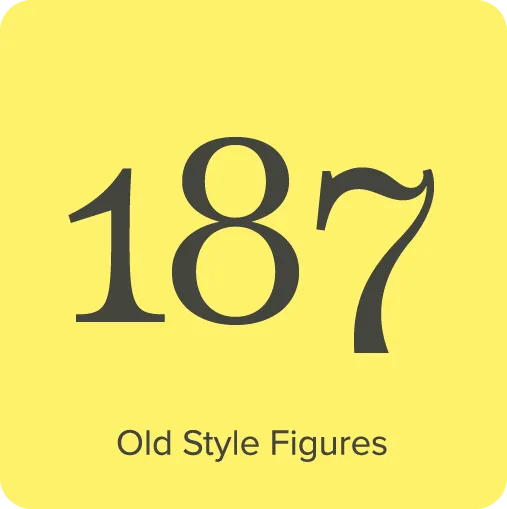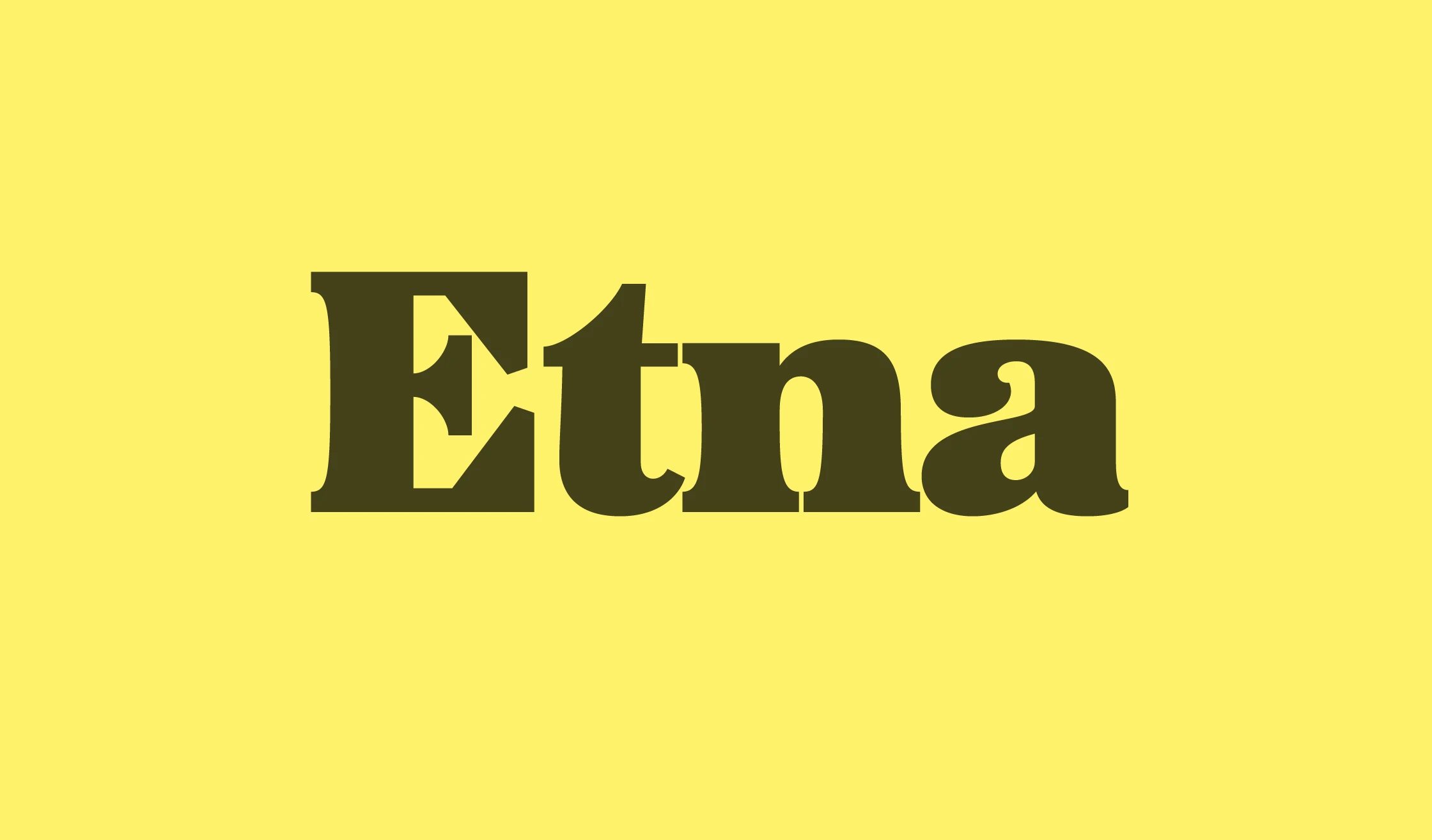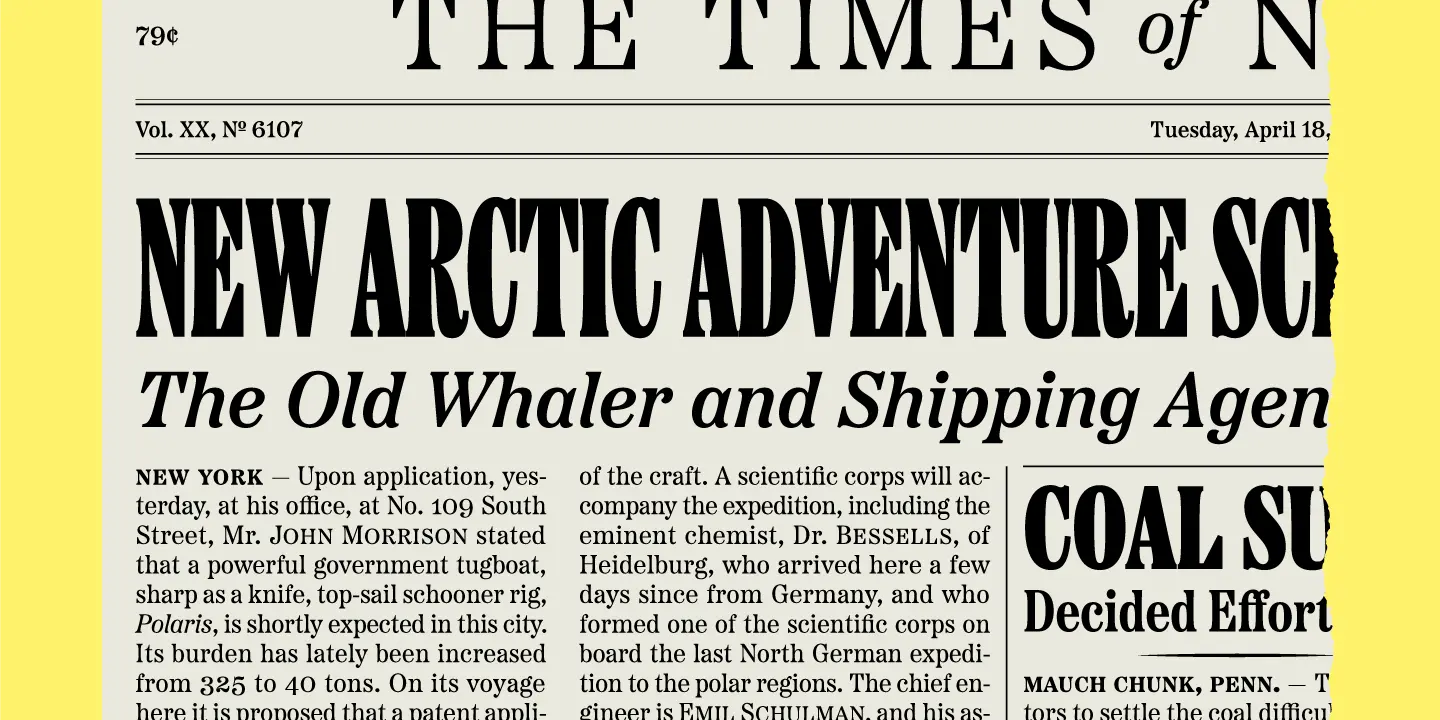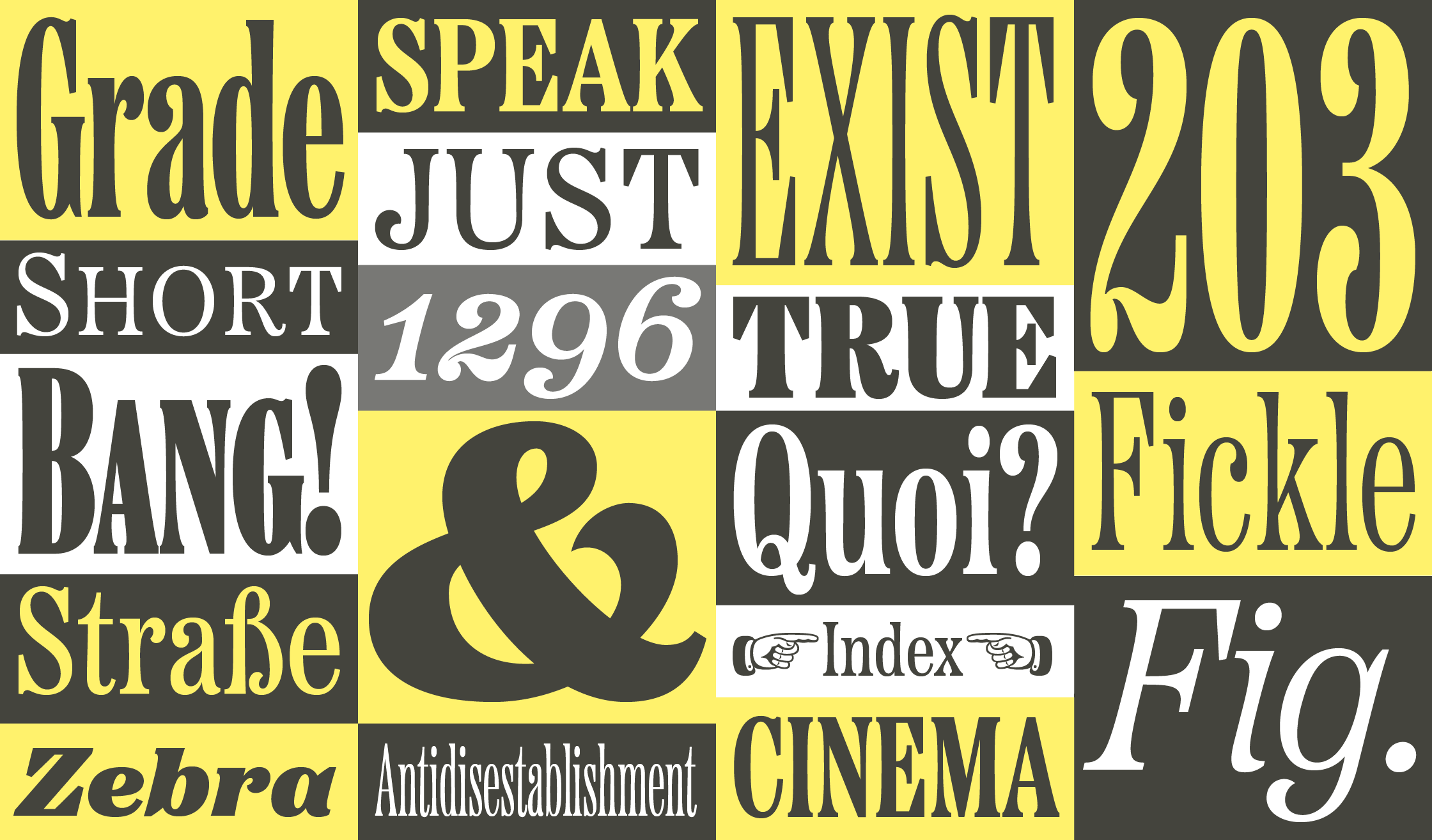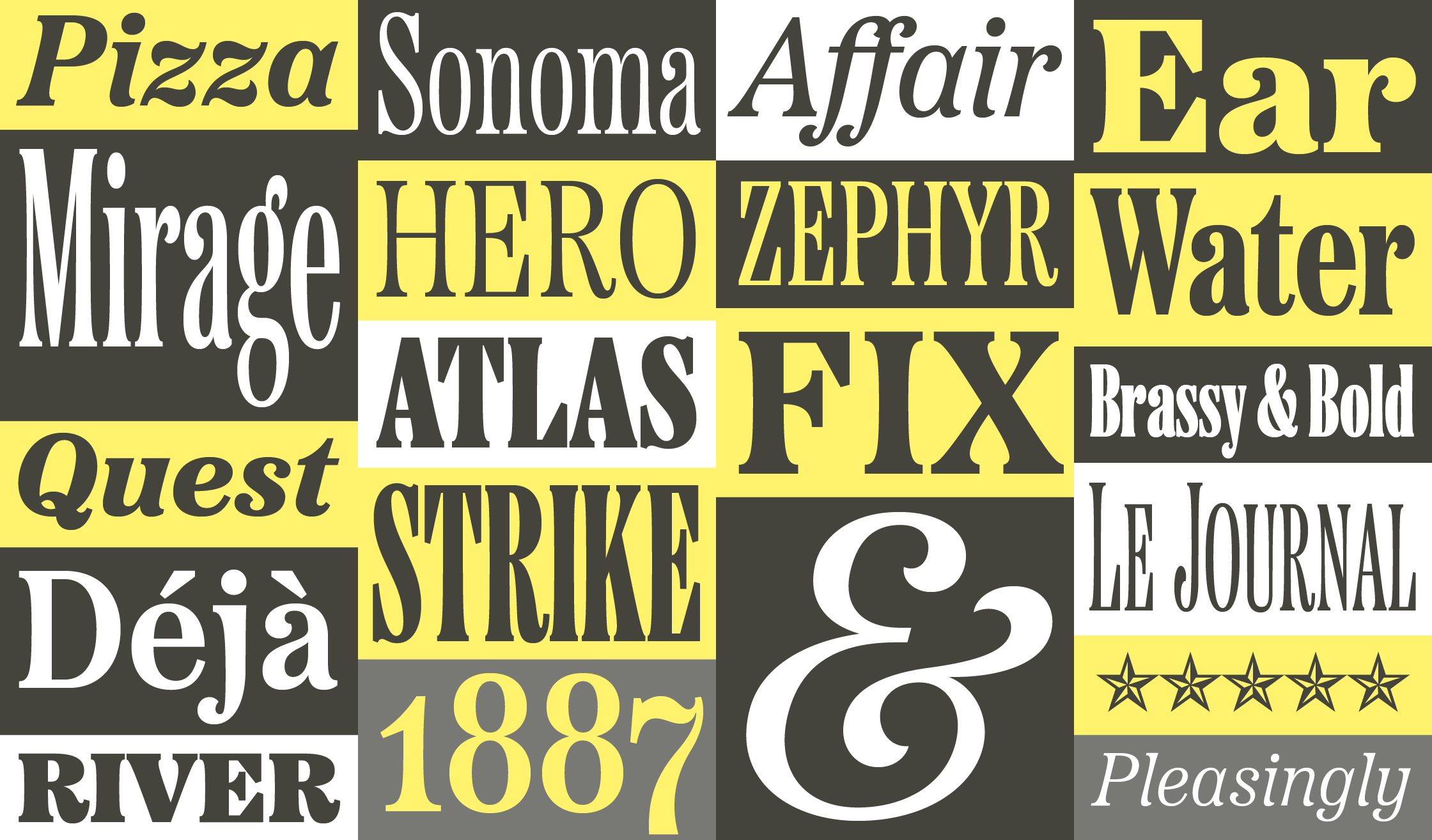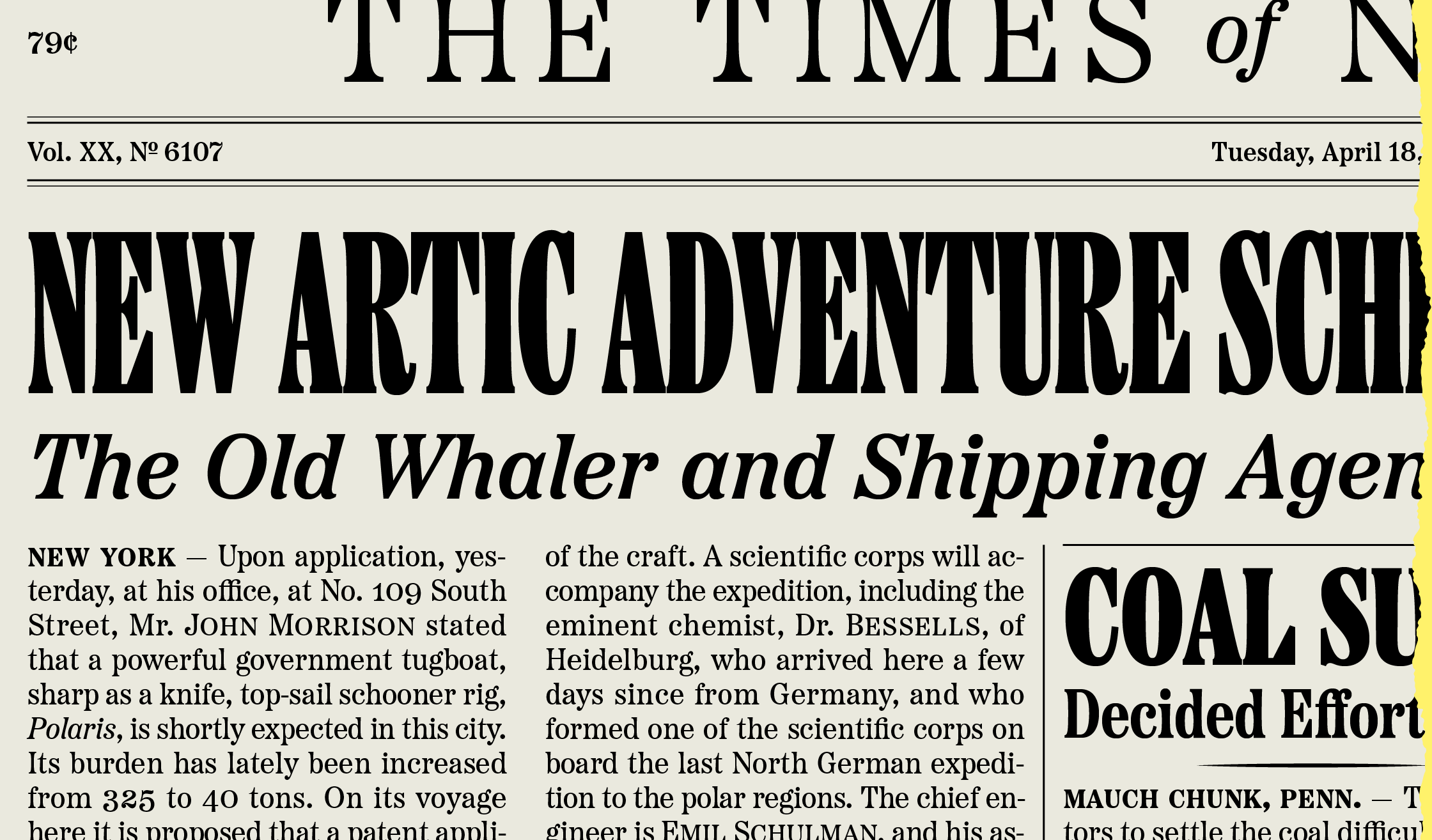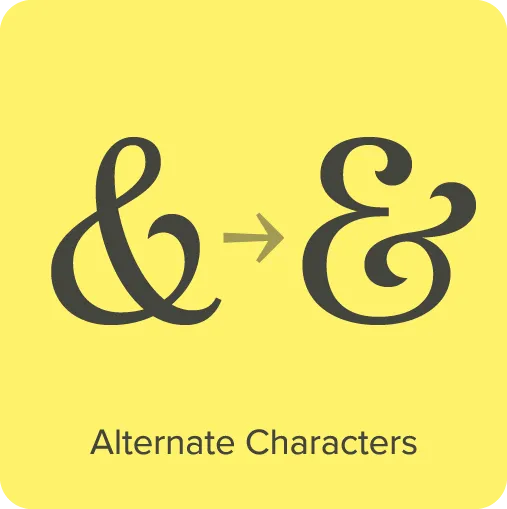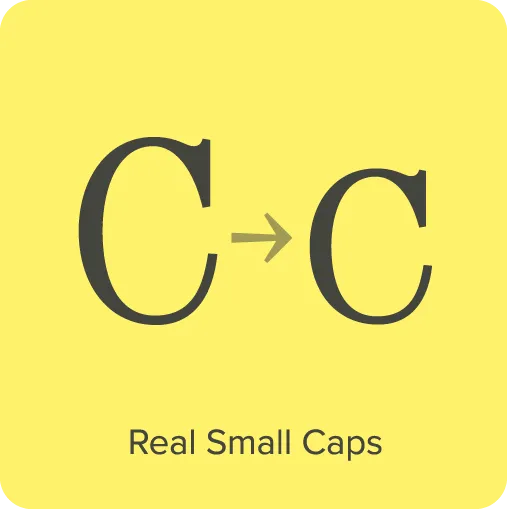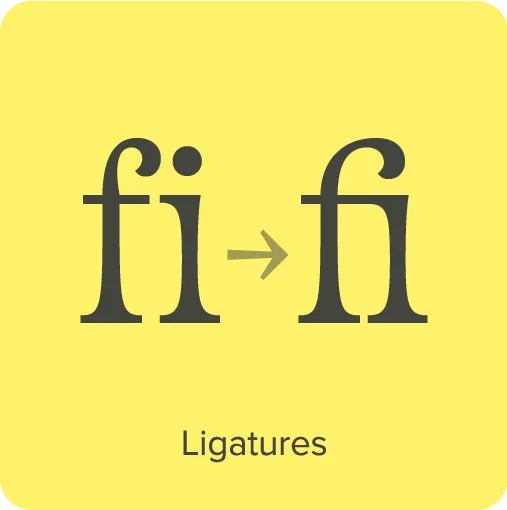
Etna (2020) was inspired by the Aetna wood type style of the late nineteenth century. Etna tames this quirky Victorian design into a complete family suitable for modern use, adding a full range of six weights and italics, allowing it to work equally well for both text and display. Etna includes three different condensed widths in all six weights (intended for display use), four different figure styles, alternate characters, true small caps, and a selection of dingbats, including arrows, stars, asterisks, and manicules (pointing hands).
Etna Features
- Six weights: Light, Regular, Semibold, Bold, Extrabold, and Black.
- Four widths: Normal, Condensed, X Condensed, and XX Condensed.
- Matching italics for the Normal width.
- 30 styles in all.
- Matching small caps for all weights and styles.*
- Lining and old style figures (both proportional and tabular).*
- Full “f” ligature set.*
- Dingbats: Manicules (pointing hands), stars, asterisks, arrows, circles, squares, diamonds.
- Alternate characters: Ampersand; figures one (old style), two, and five; filled manicules (pointing hands).*
- Automatic fractions.*
- Automatic ordinals.*
- Extended language support for most Latin-based Western and Central European languages, including all the swash and alternate characters.